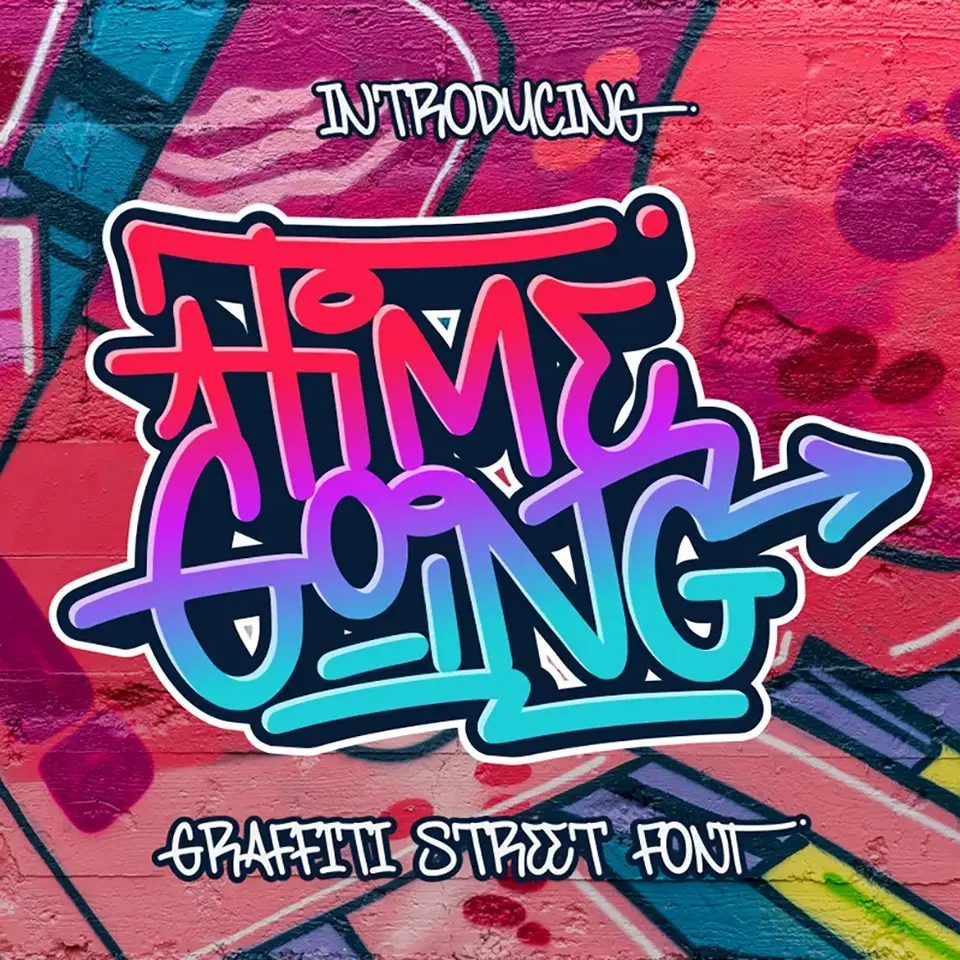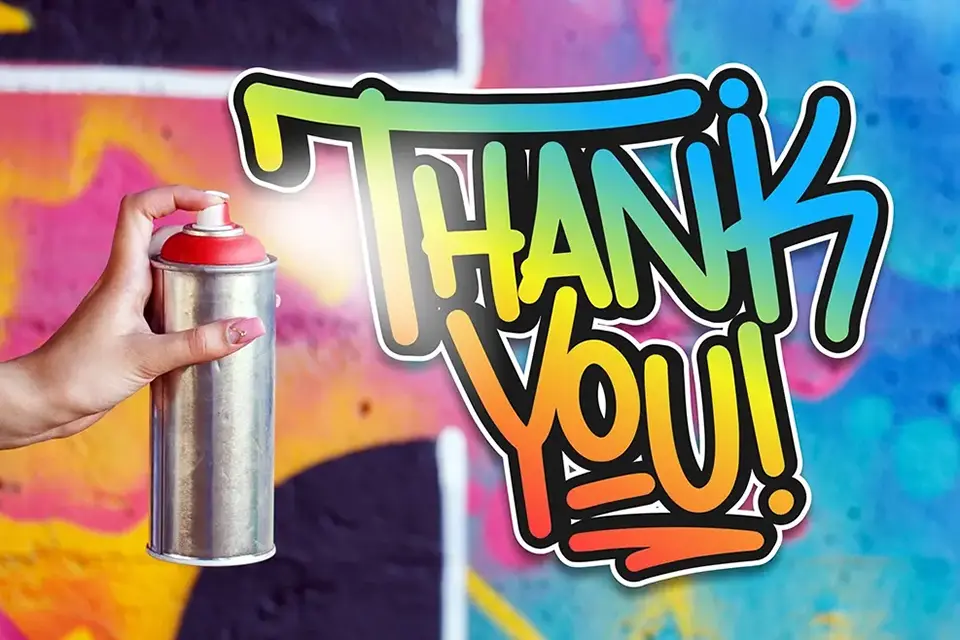
Timegoing Font
Timegoing is a contemporary graffiti font designed with a semi-condensed width and semi-light weight, blending curves and sharp edges for an eye-catching, rebellious aesthetic. Perfect for titles, logos, album covers, posters, and streetwear designs, this versatile display typeface delivers bold urban character and modern edge to any creative project, featuring multi-lingual support and extensive glyph coverage.